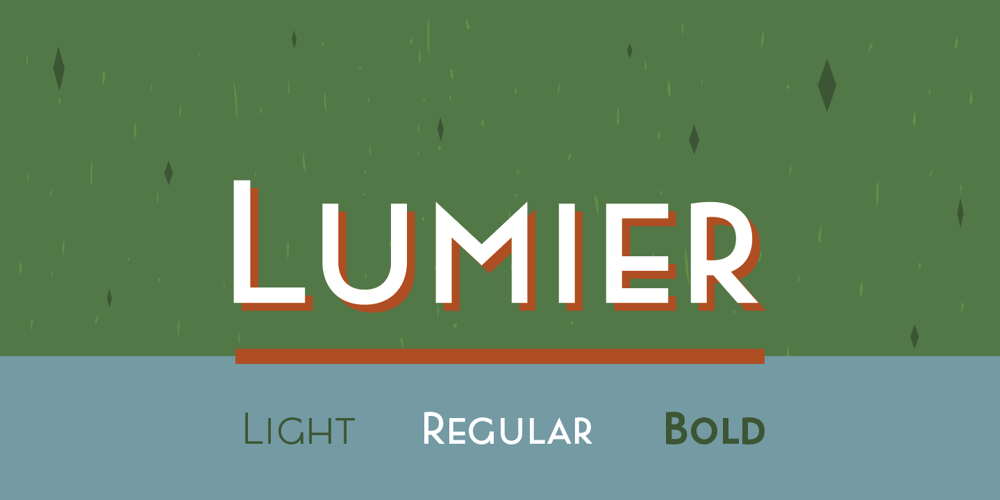
Lumier Font Family was designed by Dusan Jelesijevic and published by Tour De Force. Lumier contains 3 styles and family package options. Inspired by art deco posters from the period between WWI and WWII, Lumier comes in 3 weights with the proportions of a modern sans families.